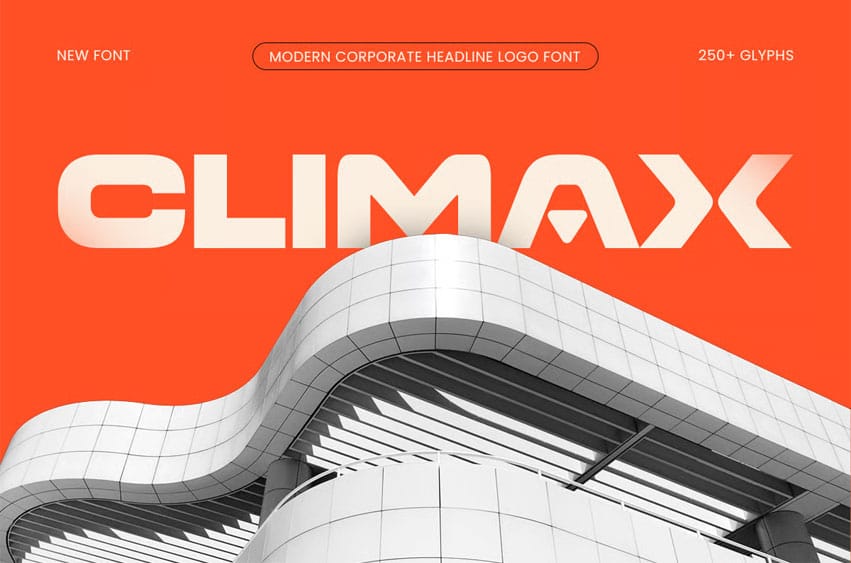
Climax Font Modern Corporate Headline Logo Font CLIMAX is a modern corporate headline logo font designed to deliver authority, clarity, and strong brand presence. With its bold structure, clean lines, and professional proportions, CLIMAX is perfect for corporate logos, headlines, branding systems, presentations, websites, and business-focused visual communication.
Built for impact and confidence, CLIMAX balances modern aesthetics with corporate professionalism. Its headline-driven design ensures excellent readability while creating a powerful visual statement, making it ideal for companies, agencies, startups, consultants, and enterprises seeking a strong and trustworthy brand identity.
CLIMAX – Modern Corporate Headline Logo Font Features:
- Modern corporate style with strong headline character
- Ideal for logos, branding, headlines, and business visuals
- Clean spacing with bold professional structure
- Perfect for corporate, business, and modern identity projects
Reach the peak of professional branding with CLIMAX – the corporate headline logo font built for maximum impact.